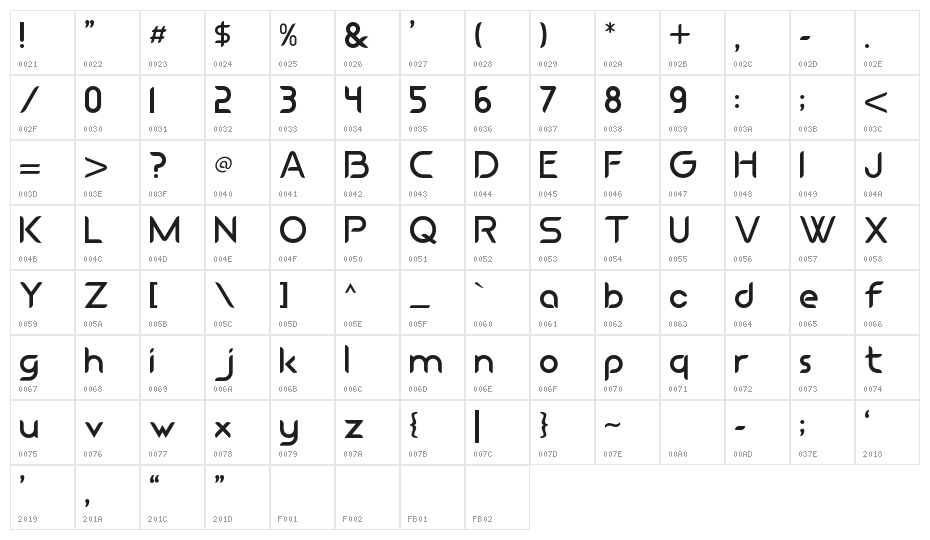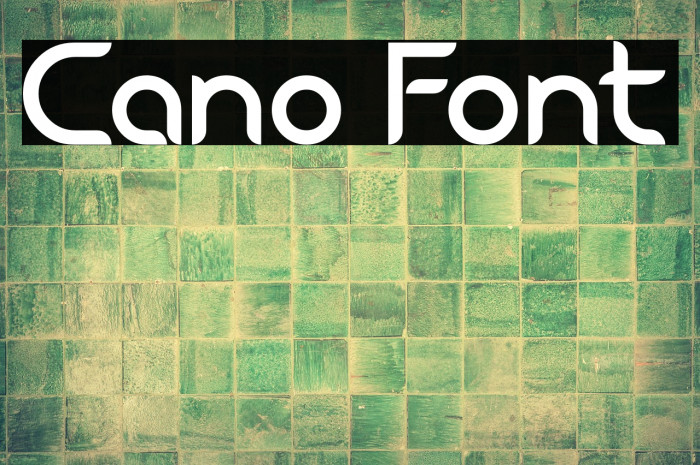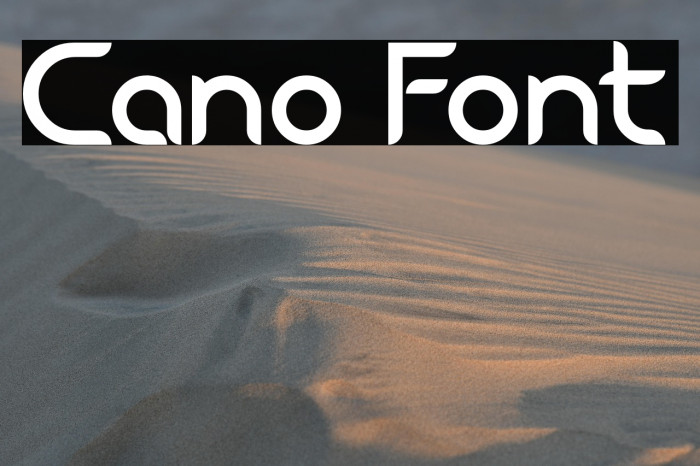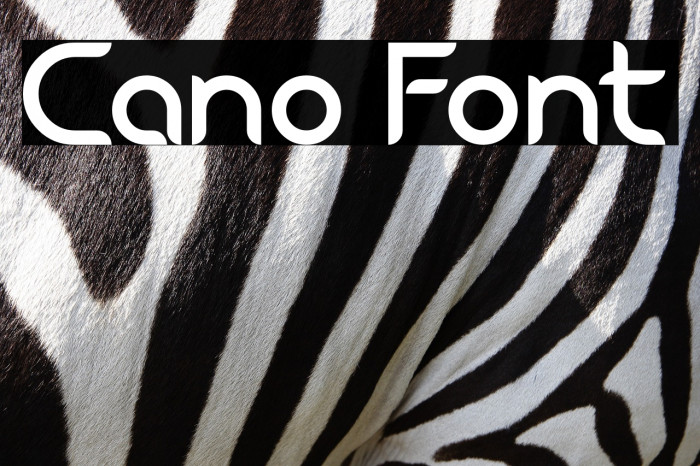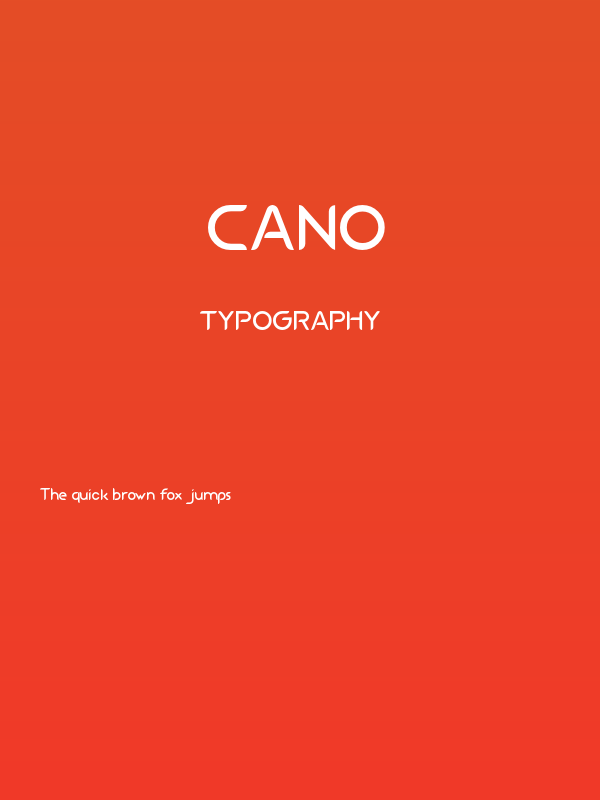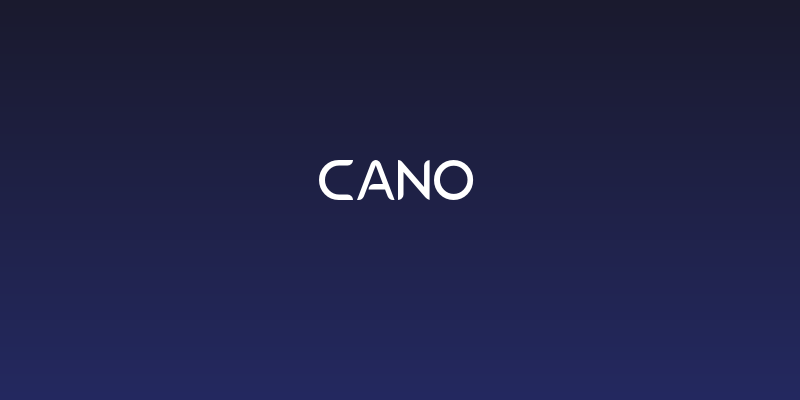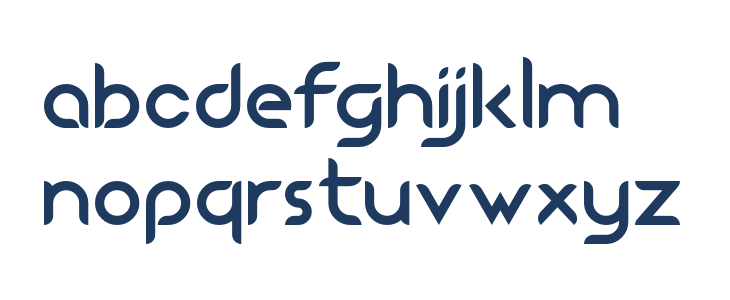
Cano Font
Cano Description
This font features a modern and futuristic design with a geometric structure. The characters are crafted with smooth curves and sharp angles, creating a dynamic and sleek appearance. The uppercase letters are bold and commanding, while the lowercase letters maintain a consistent style with rounded edges. The numerals are distinct and easy to read, complementing the overall aesthetic. Special characters are designed with the same attention to detail, ensuring uniformity across all glyphs. This font is ideal for projects that require a contemporary and innovative look.